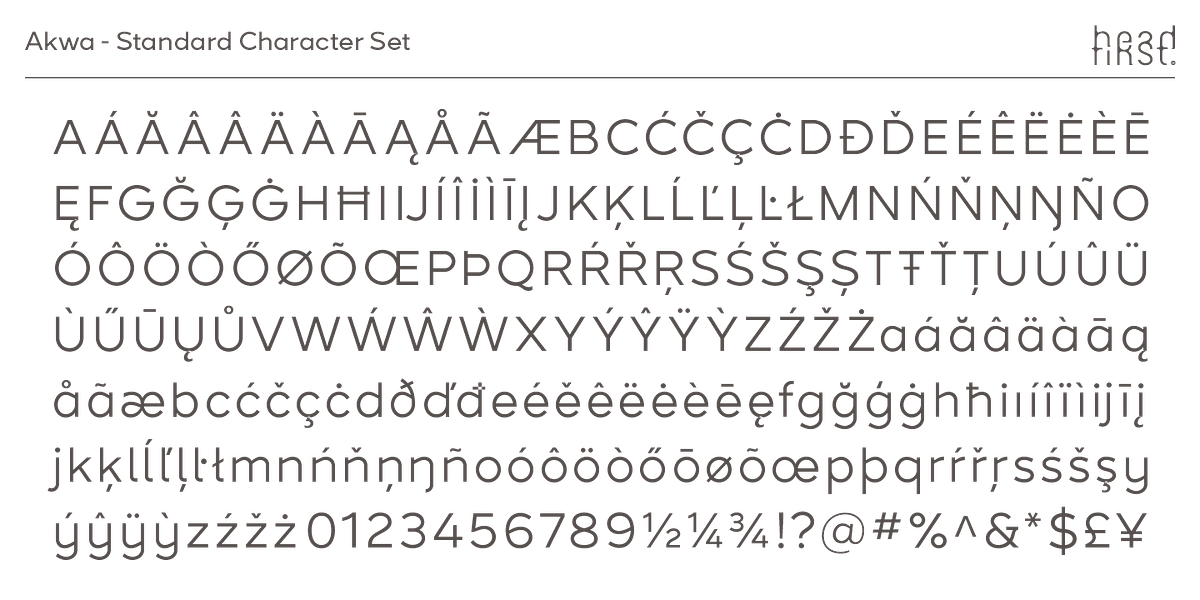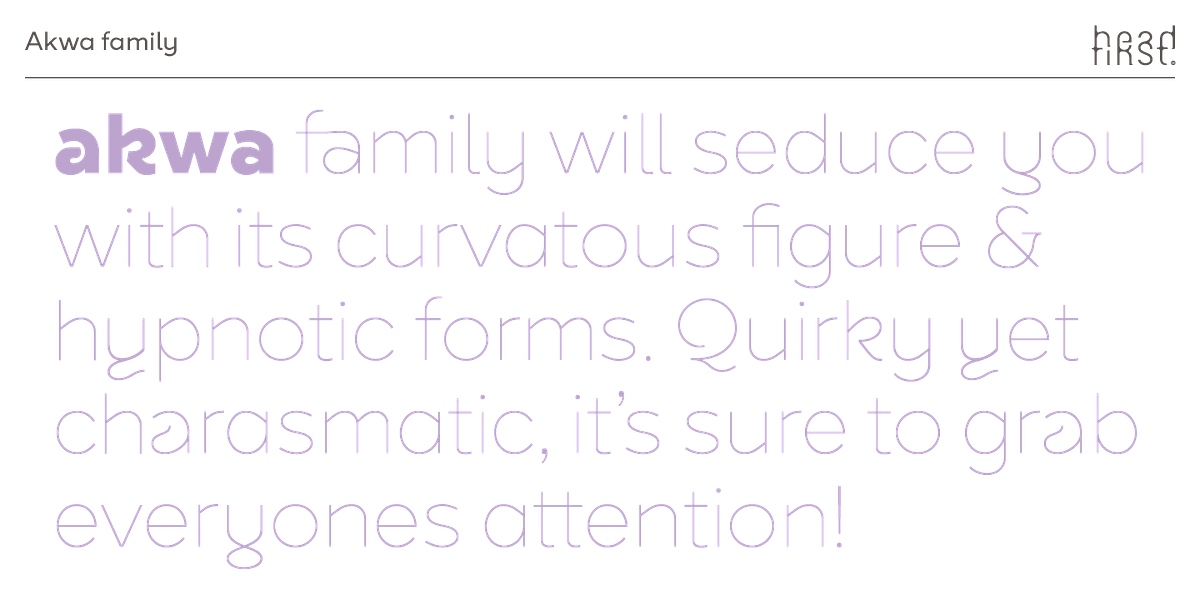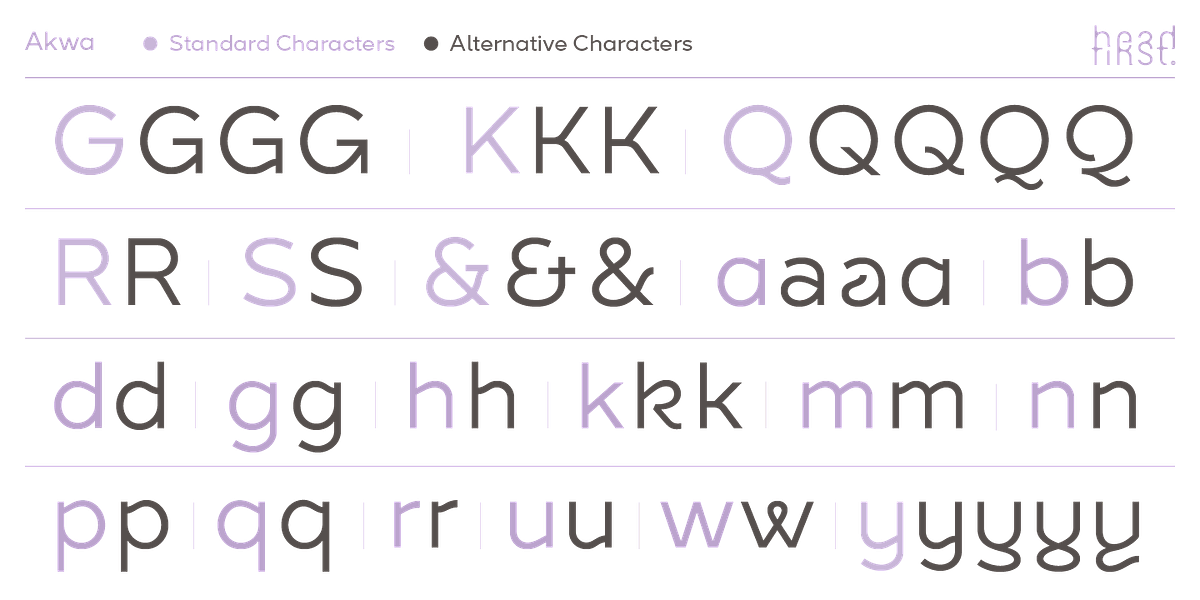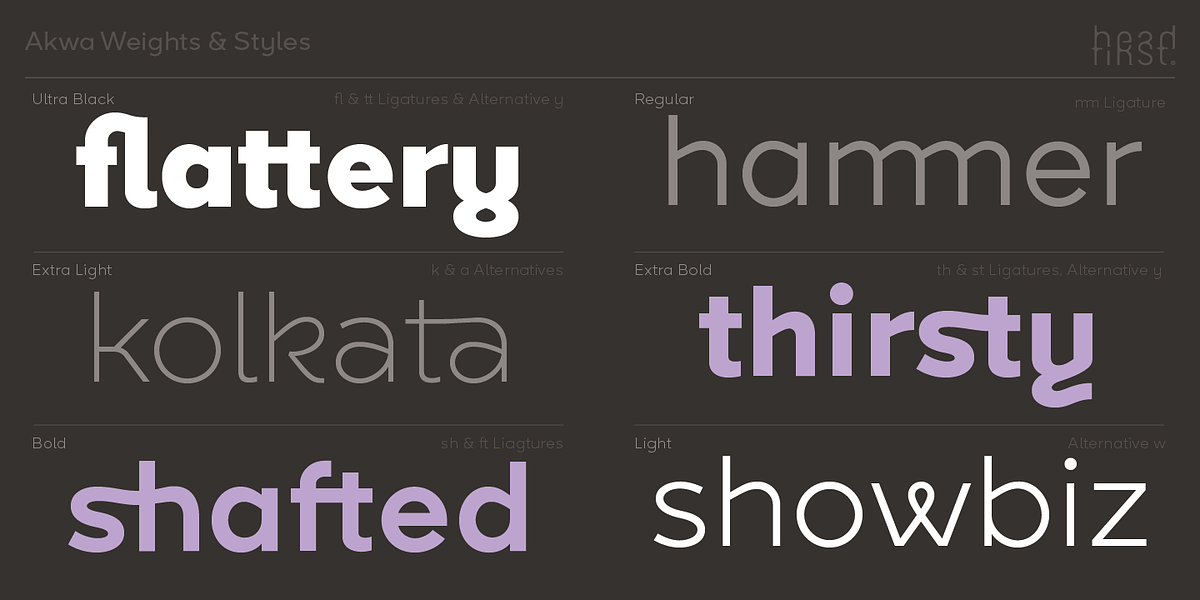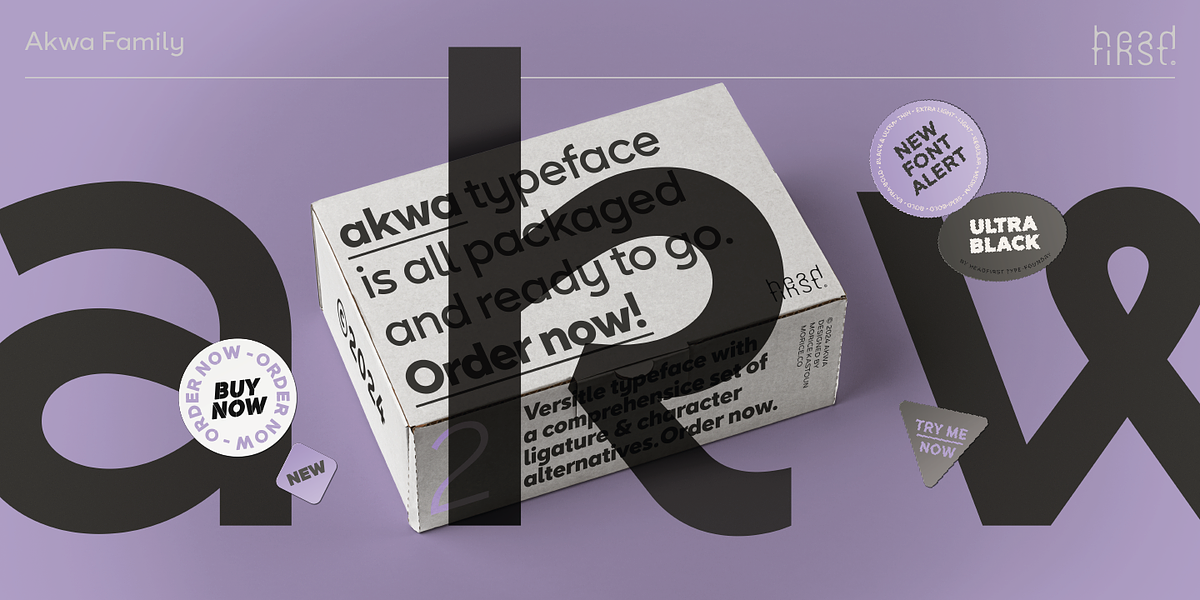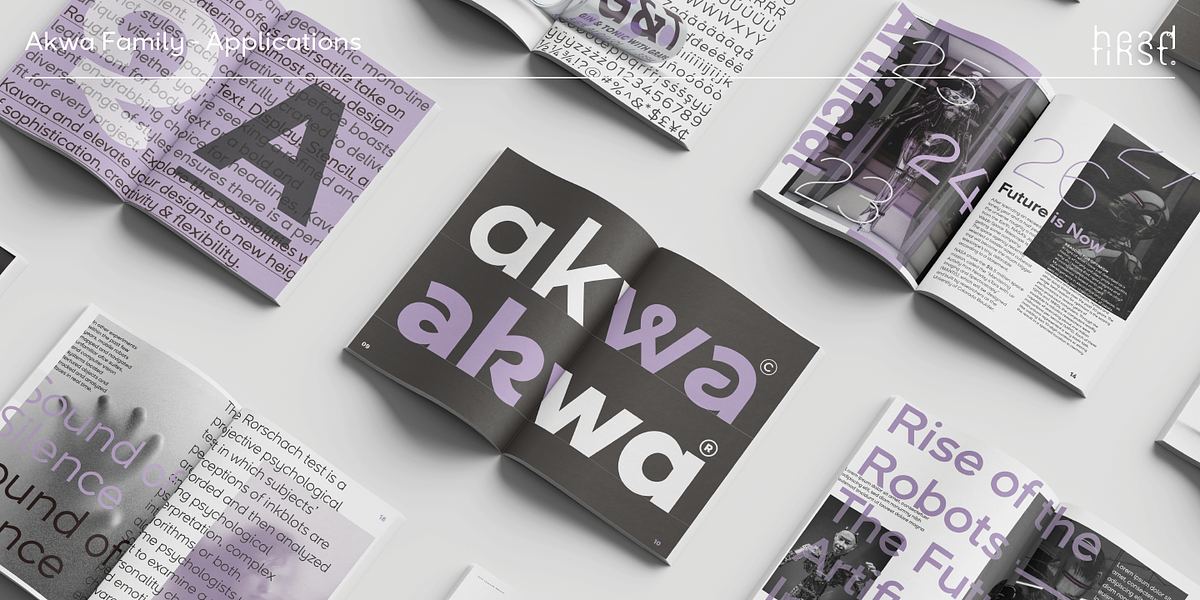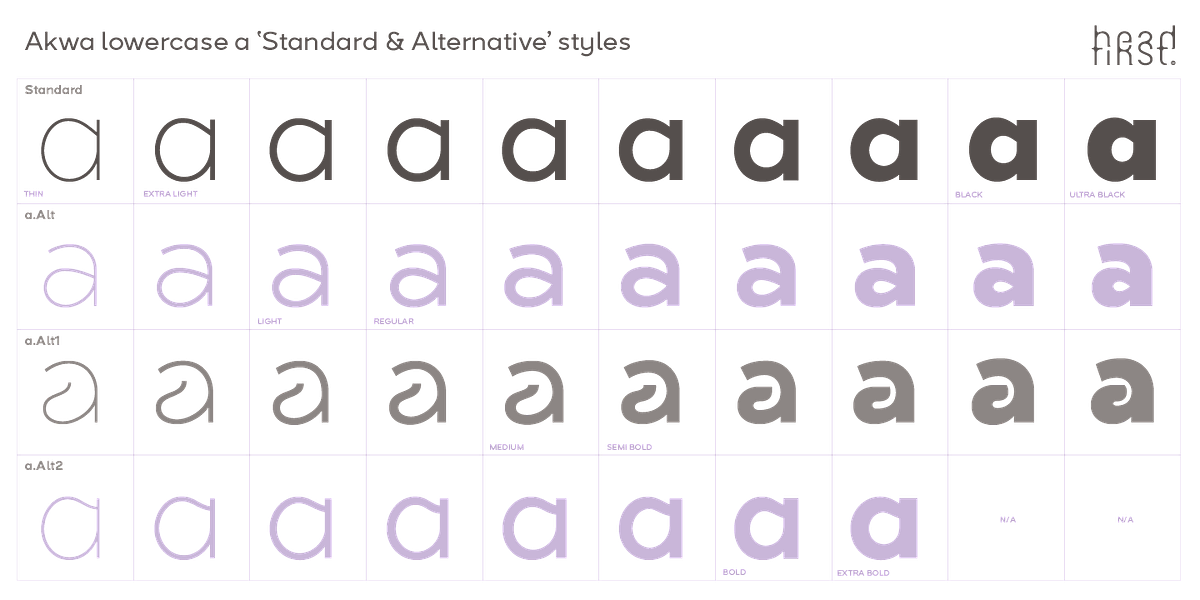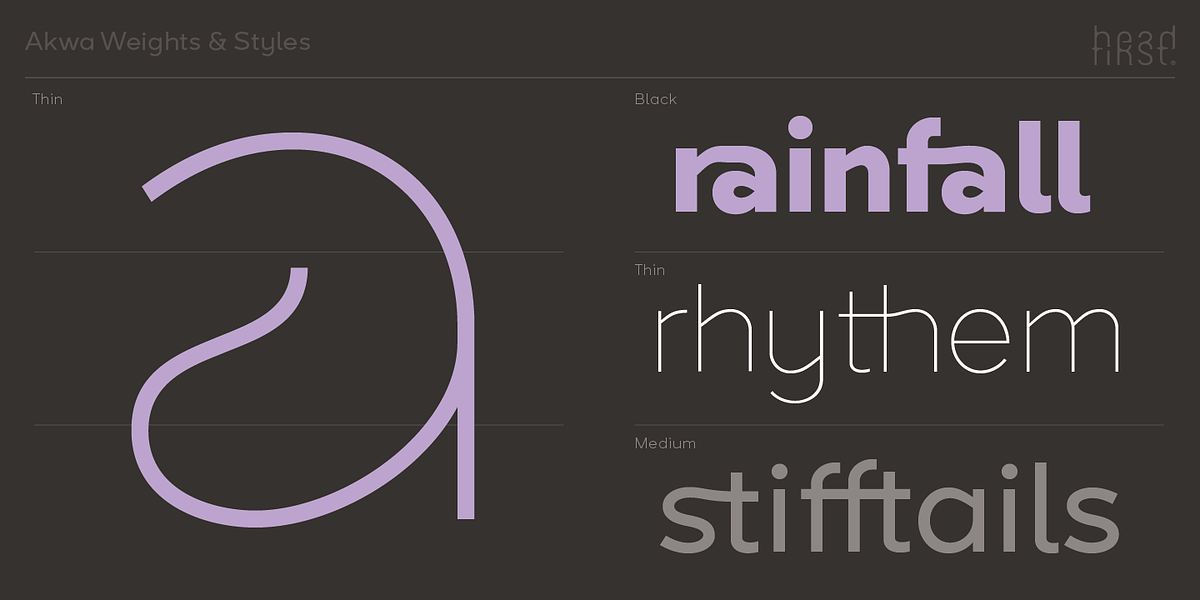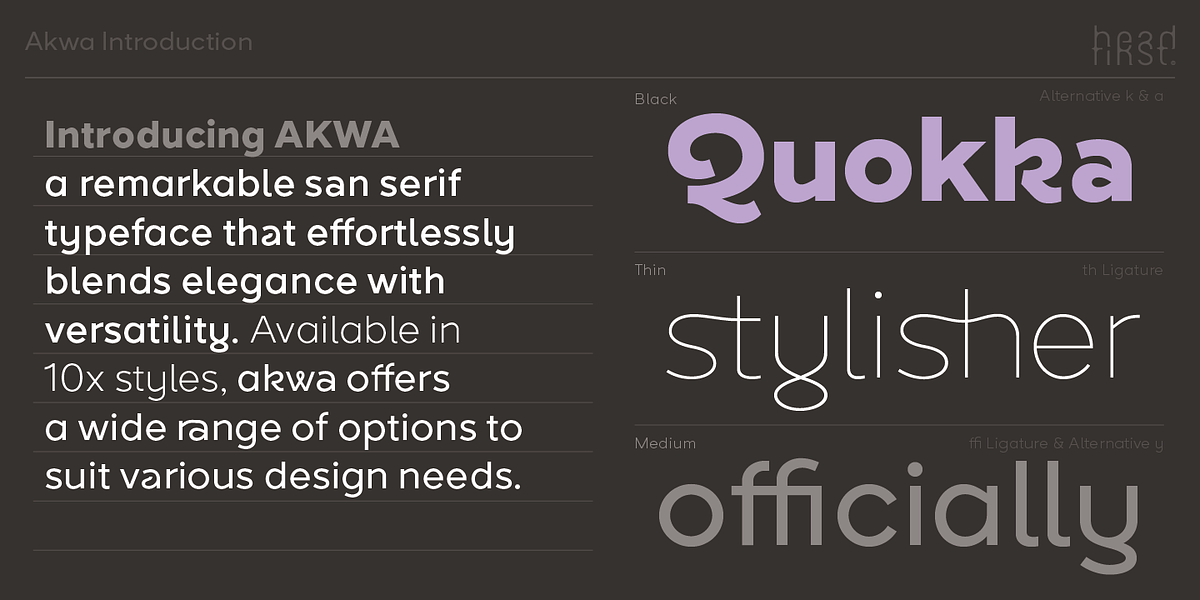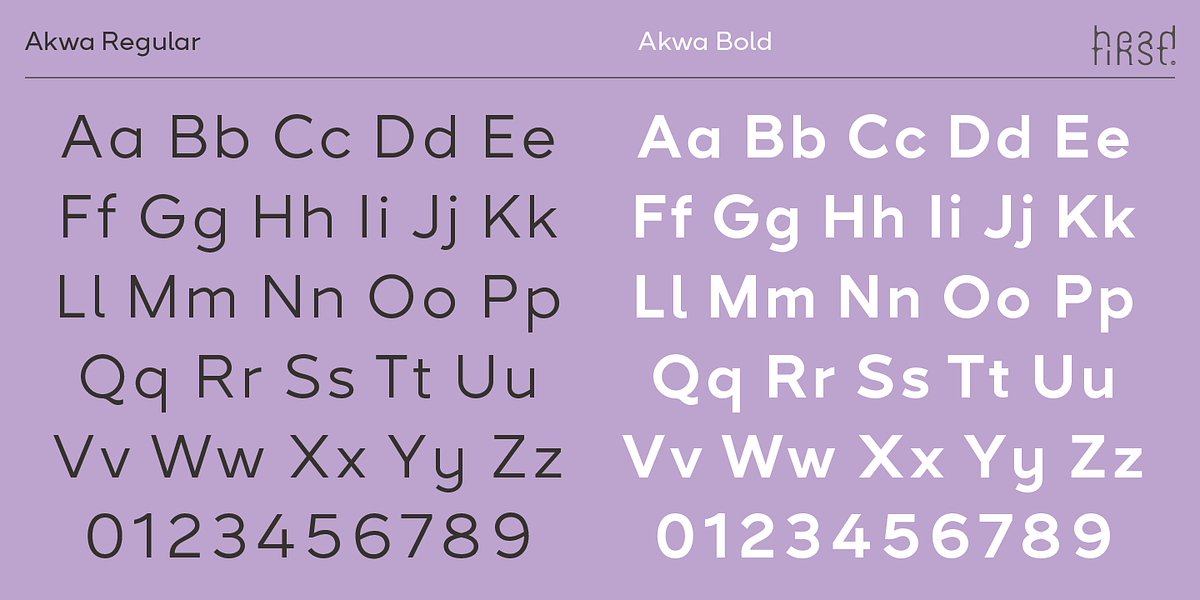
Akwa
Akwa is a geometric sans-serif font characterized by its elegant and modern aesthetic. Its low-contrast, linear forms contribute to a refined and versatile appearance suitable for paragraph text.